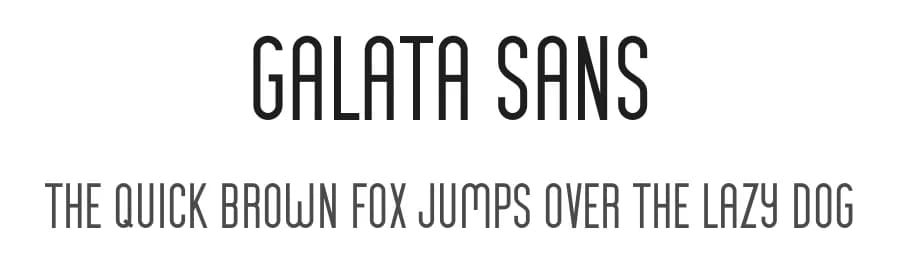
About Galata Sans Font
Galata Sans is a sans-serif font designed by Krafti Lab. It includes 93 glyphs, a regular weight, OTF (CFF) format, and 199 languages. Galata Sans is free to download; check the license details on this page before commercial use. Sans-serif fonts like Galata Sans work best for clean body text, user interfaces, branding, and modern layouts.
Galata Sans Font is a versatile sans-serif font that works for both headings and body text. Pair it with a contrasting serif or slab serif font to add visual interest and a clear distinction between titles and body copy.
Galata Sans Font